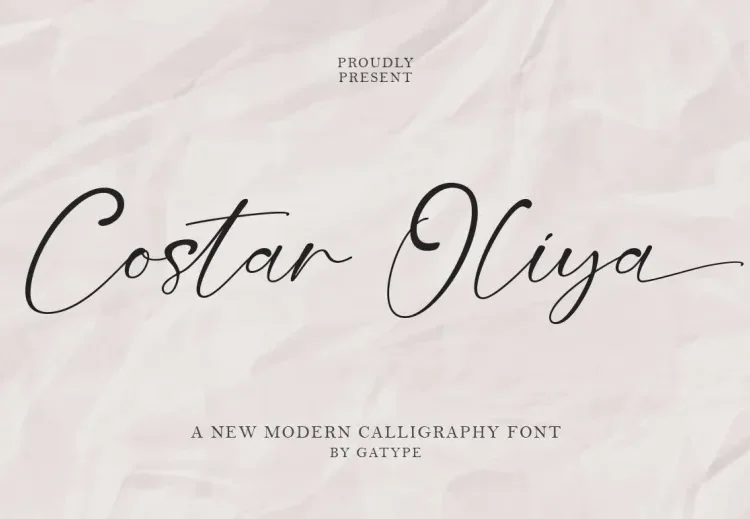
Costar Oliya Font
Costar Oliya is an expressive and contemporary calligraphy script font that combines creativity with elegance. With its humorous characters and subtle design touches, such as binder options and alternative glyphs, Costar Oliya is designed to add a unique flair to your projects.
Key Features of Costar Oliya:
• Expressive Design: Features playful and dynamic characters that bring a sense of fun and creativity to your text.
• Creative Alternatives: Includes various ligatures and stylistic alternates for added customization and artistic flair.
• Versatile Applications: Ideal for logos, social media posts, movie and book titles, and any project requiring a touch of personality and charm.
Ideal Uses:
• Branding: Perfect for crafting memorable logos and brand identities with a distinctive, expressive touch.
• Media Titles: Enhances movie and book titles with its unique and engaging style.
• Design Projects: Works well as a secondary font paired with serifs or sans serifs for added visual interest and contrast.